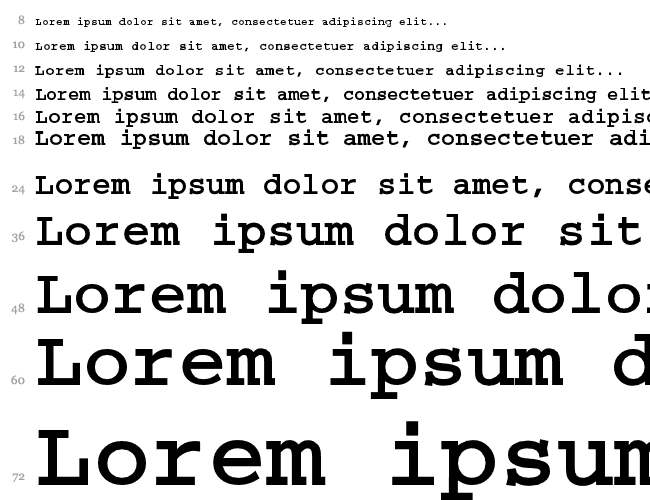
Courier truetype font download free courier font (59 kb). For detailed information, please, read the files (e.g., readme.txt) from archive or visit the website given by an author (designer) or contact with him if you have any doubt. This typeface belongs to the slab serif font family.
Courier font custom preview tool Courier prime regular 400 (ttf) click to preview. October 30, 2021 by eduard hoffmann.
This font is available in truetype or opentype format. This typeface was specially designed to utilize in ibm mechanical typewriters. Instant downloads for 48 free courier fonts.
Download courier prime font family · free for commercial use · since the beginning, screenplays have been written in courier. The license given on the font page only represents received data. Download courier font (4 styles).